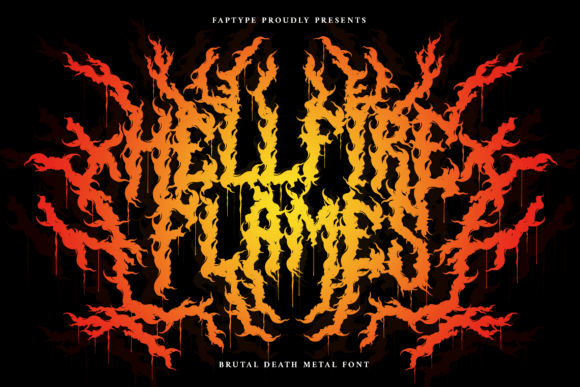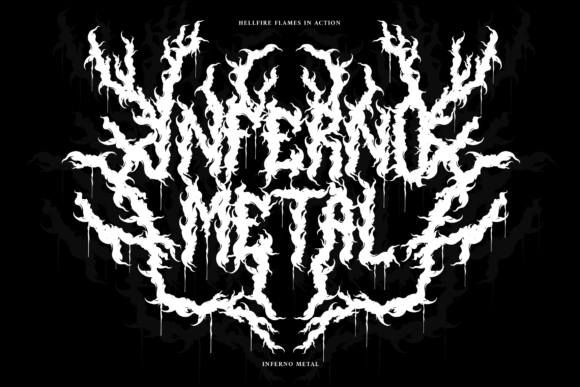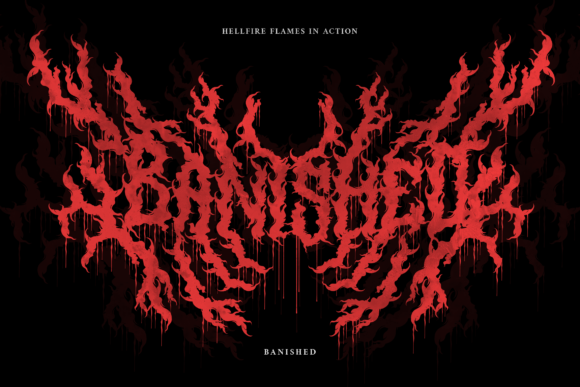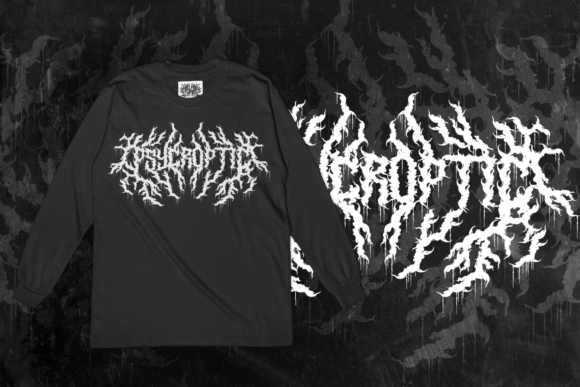
Hellfire Flames Font
About the Hellfire Flames Font
Add a touch of class to your work with the Hellfire Flames Font, a truly exceptional typeface. Hellfire Flames is a death metal font that embodies the essence of infernal power and brutal energy. The font’s letters take the shape of black flames, with a raw and aggressive design that will leave a lasting impression. Hellfire Flames is perfect for anyone looking to add a touch of darkness and aggression to their design projects.
Hellfire Flames excels in large-scale applications such as posters, album art, or logotypes for bands and brands focused on heavy metal, horror, or similar genres. Its aggressive nature makes it unsuitable for body text or UI elements; readability suffers at smaller sizes. Avoid using it for lengthy passages or situations requiring clear legibility.
The font’s raw energy is best complemented by pairing it with clean, geometric sans-serif fonts like Montserrat or Roboto for contrast. This juxtaposition of raw energy and controlled structure creates visual interest and balances the intensity of Hellfire Flames. Alternatively, a stark serif like Playfair Display can add a touch of classic darkness, further emphasizing the font’s rebellious character.
Hellfire Flames projects a bold, rebellious, and uncompromising personality. It is ideal for conveying power, aggression, and a darkly dramatic aesthetic.
Hellfire Flames Font Usage Examples
Hellfire Flames Font Example